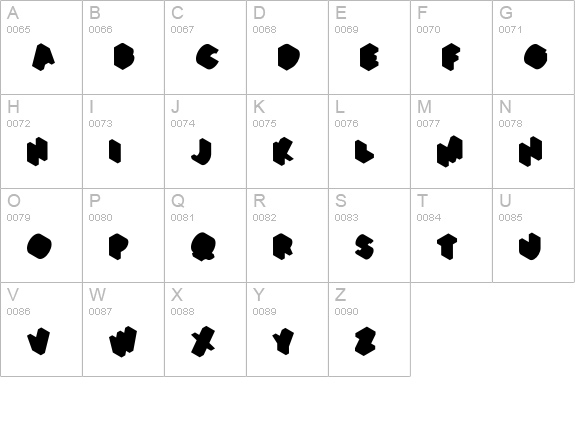
Anaglyph Isometric font is a visually striking and modern typeface that combines elements of anaglyphic design with isometric shapes. This unique font is perfect for creating eye-catching graphics, posters, and branding materials. The sharp angles and distorted perspectives of this font give it a truly dynamic and futuristic feel.
What sets Anaglyph Isometric font apart is its ability to create the illusion of depth and three-dimensionality, making it ideal for projects that aim to stand out and make a lasting impression. Whether you're designing a website, a logo, or a social media post, this font is sure to make your work pop.